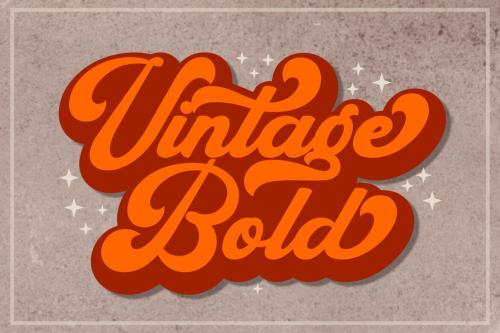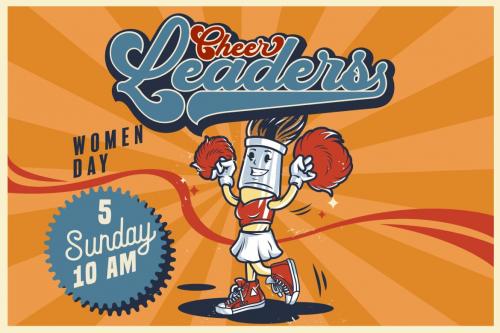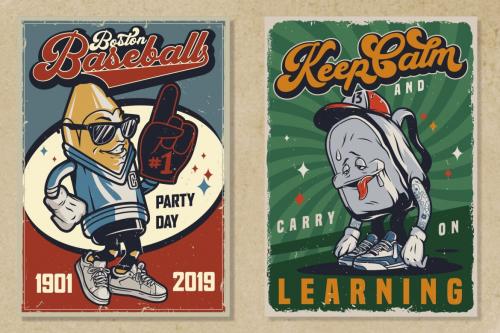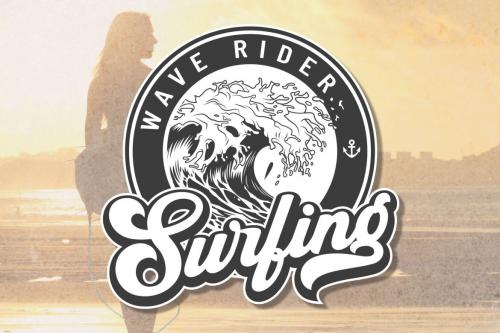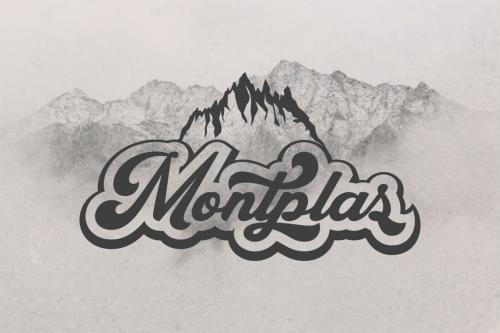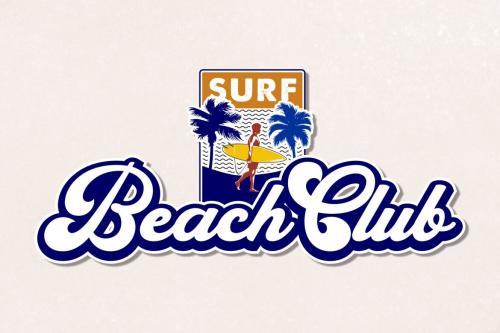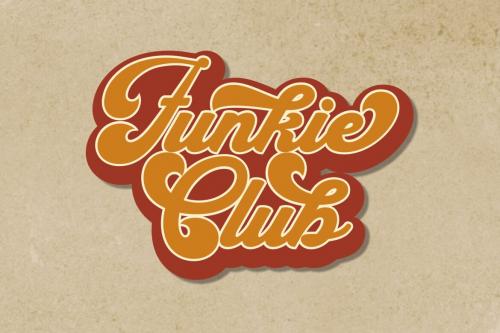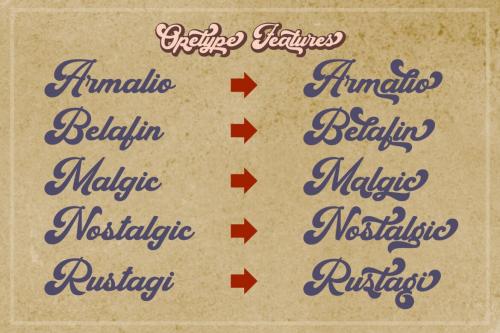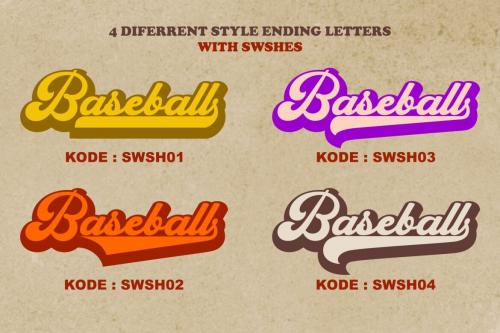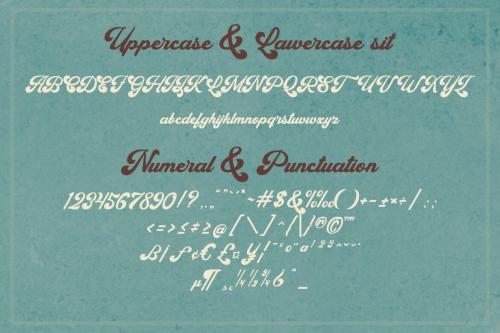
Chubiy is a retro bold script style font, come with clean and rough font version. Inspired from retro typography and lettering in the 60's and 70's combine with bold typography style. This font perfect for vintage and retro design, badge, logos,t-shirt, poster, branding, packaging, signage, book coverand so much more!
it has an extensive lingual support, covering European and Asian Latin scripts. The font contains all characters you'll ever need, including all punctuation and numbers. What you get, darling?